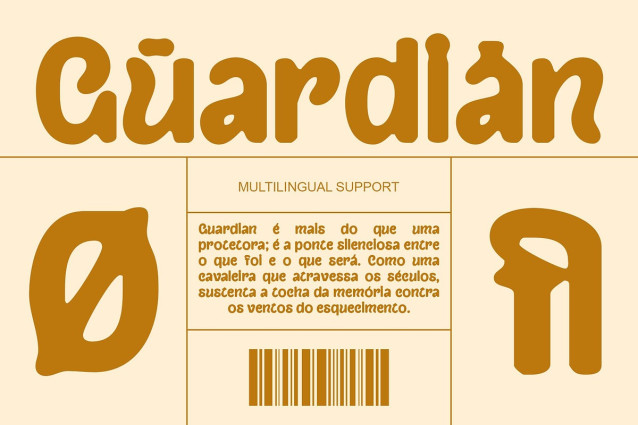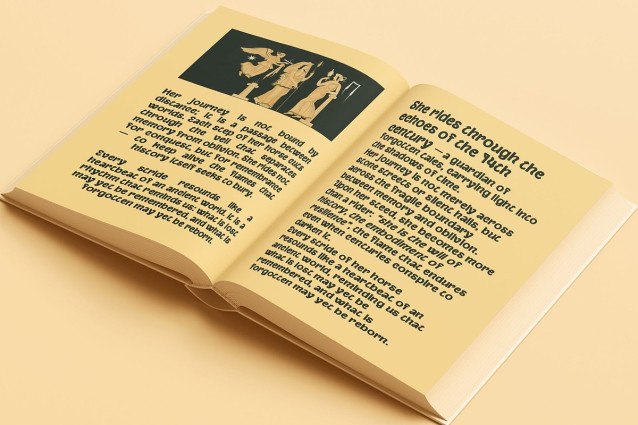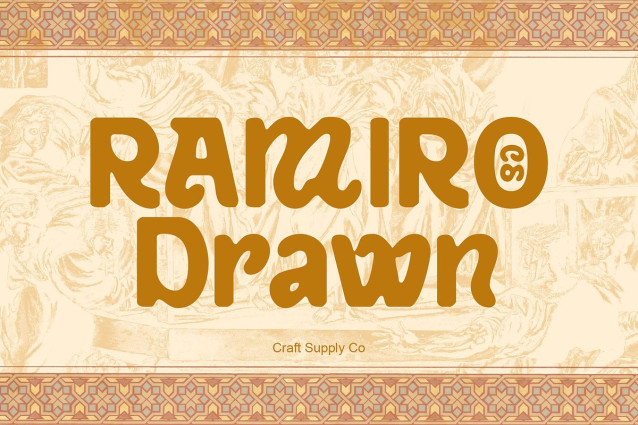
CS Ramiro Drawn Font
CS Ramiro Drawn Font – Renaissance Font: Ornamental Elegance, Classical Proportions, with Drawn Texture. Renaissance Grandeur Reimagined The captures the ornate sophistication of Renaissance typography, blending historical charm with a modern artistic approach. With its flourished sans serif details and classical proportions, this font radiates a timeless beauty inspired by historic manuscripts and traditional calligraphy.
Artistic Drawn Texture for Authenticity Unlike polished digital fonts, with a drawn texture that highlights its handcrafted character. Each stroke feels rich with detail, as though penned by a calligrapher’s hand. This unique finish enhances its authenticity, making it perfect for projects that value cultural depth, artistry, and tradition.
Perfect for Elegant Branding and Design This font is especially suited for book covers, posters, invitations, or branding that requires a sense of heritage and grandeur. Its ornamental design ensures that headlines and titles stand out while still maintaining a graceful, dignified tone. For cultural institutions, luxury brands, or editorial layouts, this font offers the right balance of history and artistry.
Versatile for Creative Applications From nostalgic projects rooted in history to modern designs seeking a classical touch, adapts with ease. Its ornamental beauty pairs well with both minimalist and richly detailed layouts, making it a versatile tool for designers. Whether for cultural branding, artistic events, or heritage-inspired designs, this font communicates elegance, tradition, and creativity in equal measure.